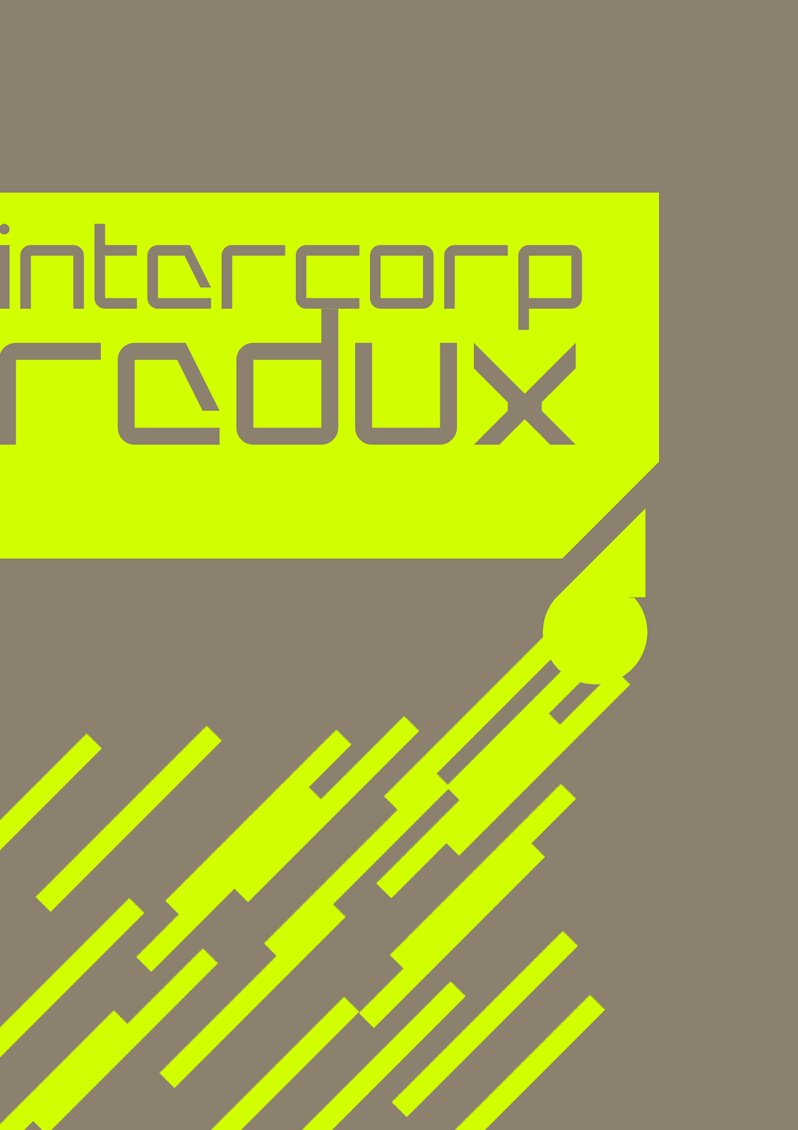
Font name: | Intercorp Redux |
Author: | NathanCaldecott |
Note by NathanCaldecott | |
Intercorp has been completely redesigned, and bears little resembleance to the original. The font is 50% thinner, some letters made more standard and some angled to make a more fresh look." Made in 2009. |